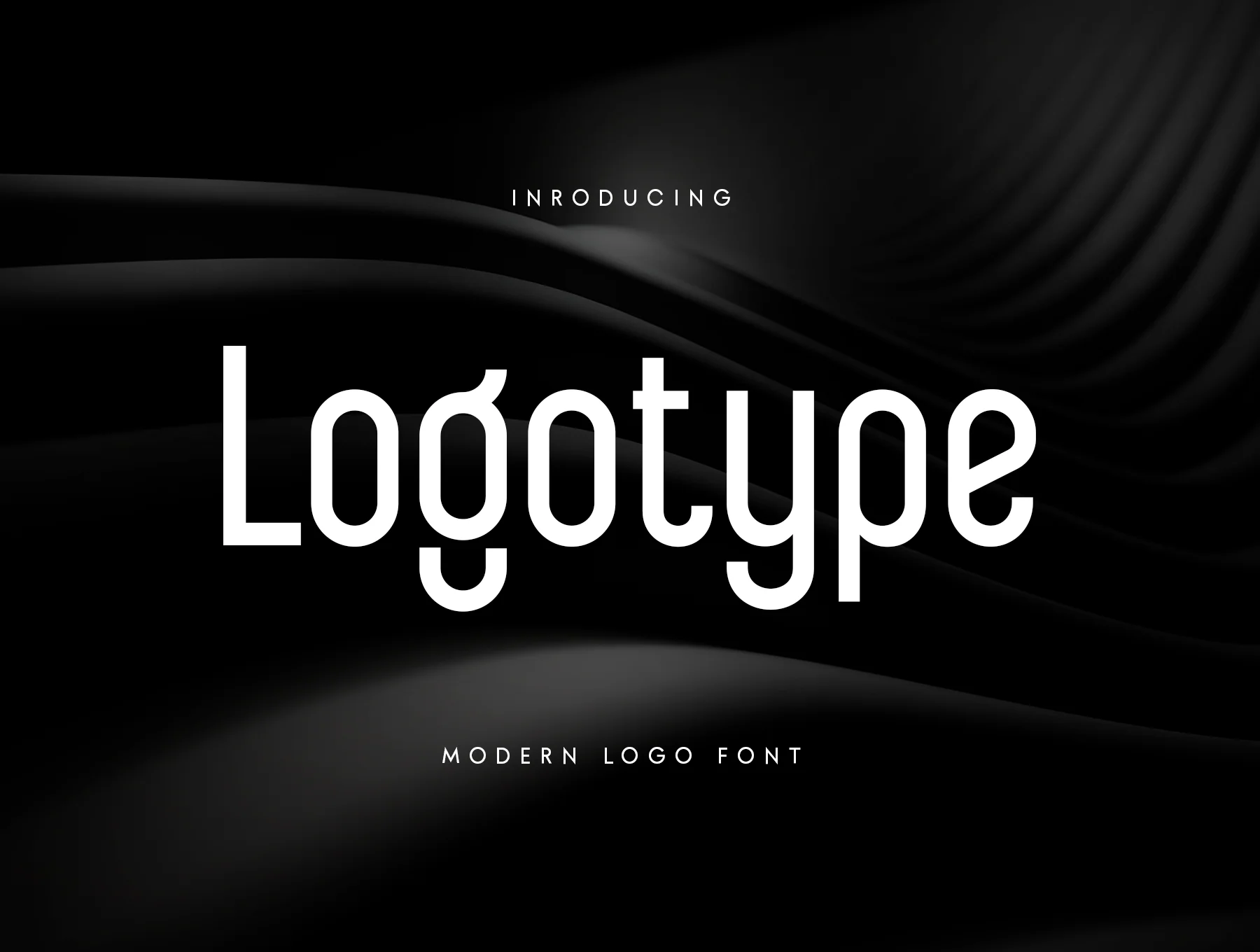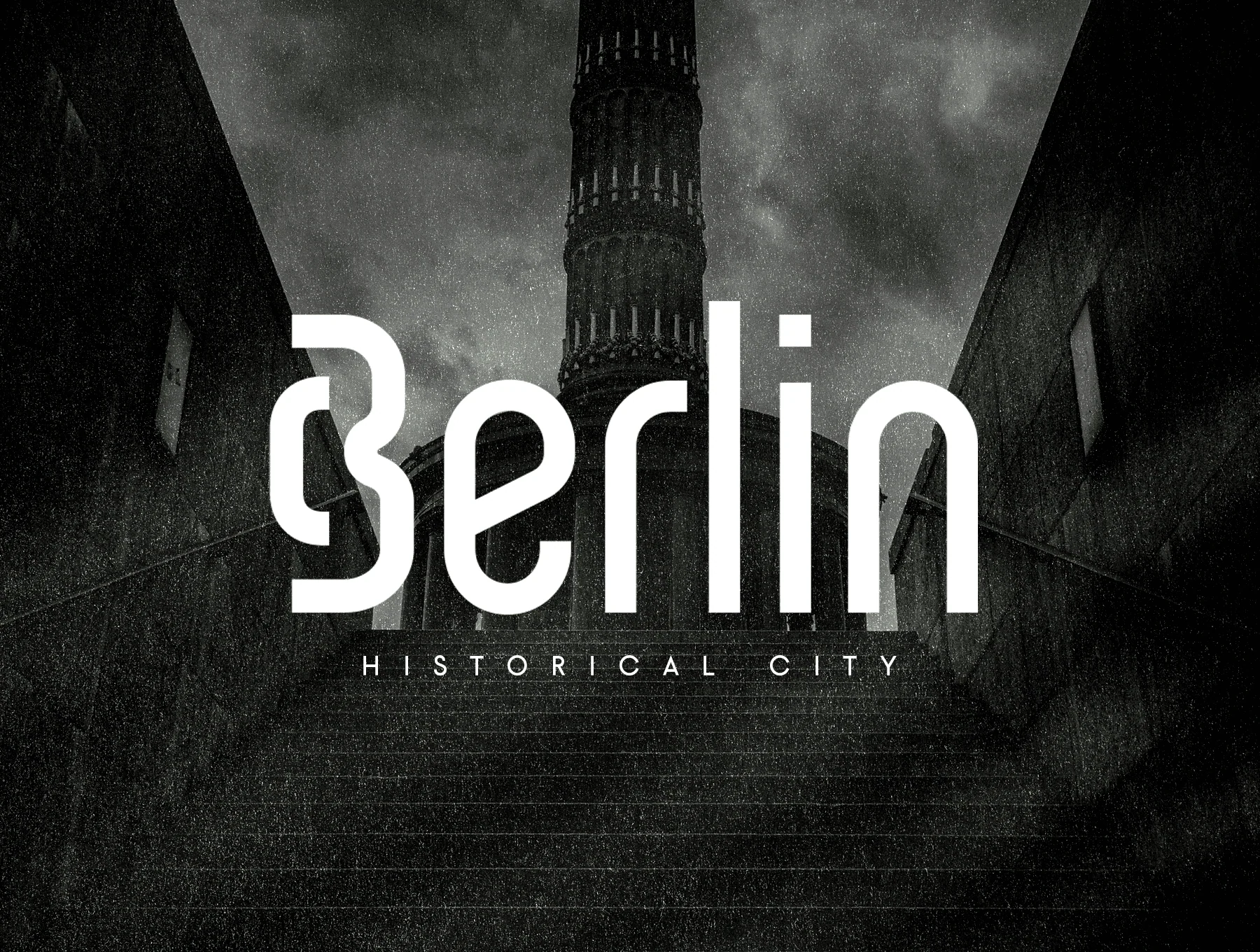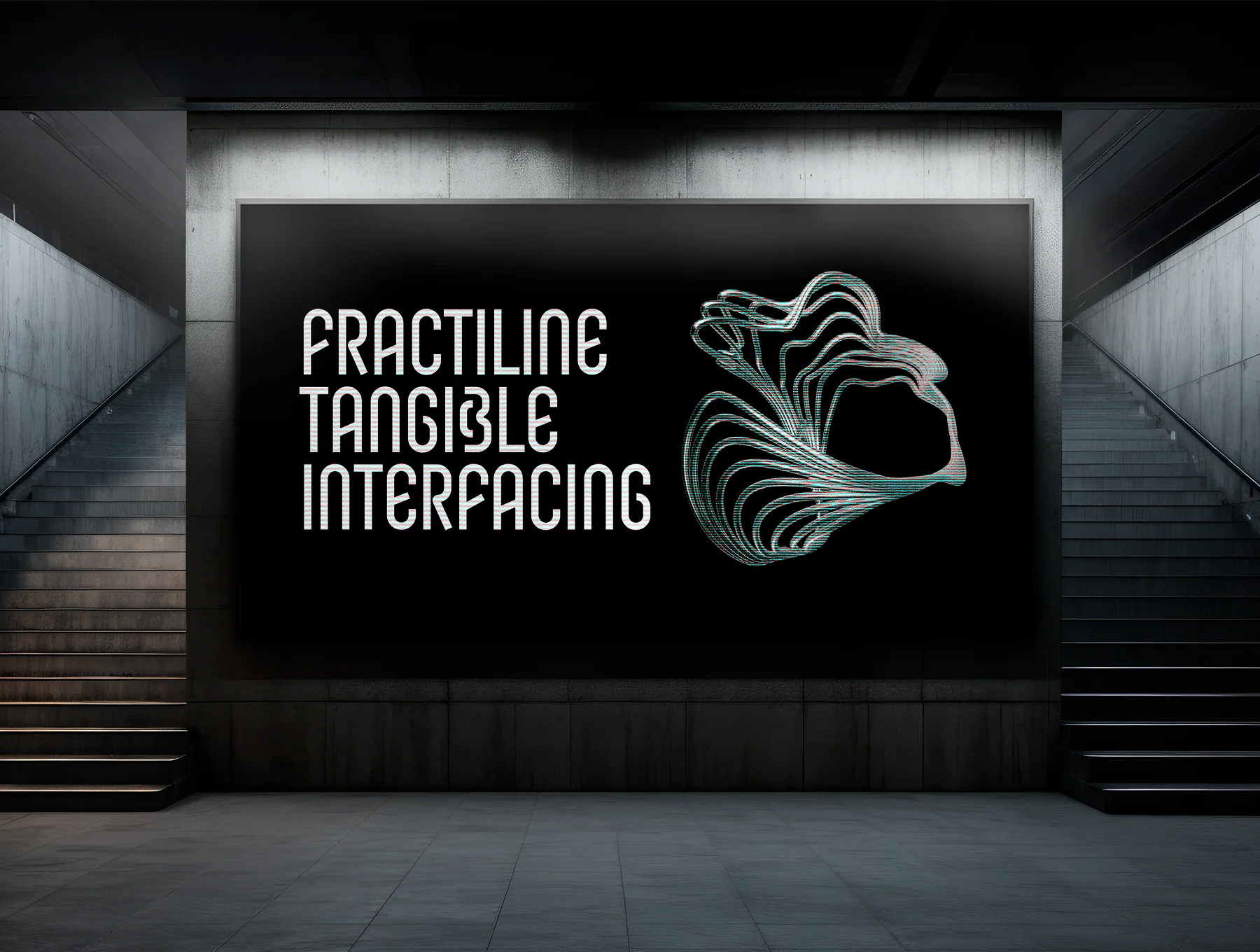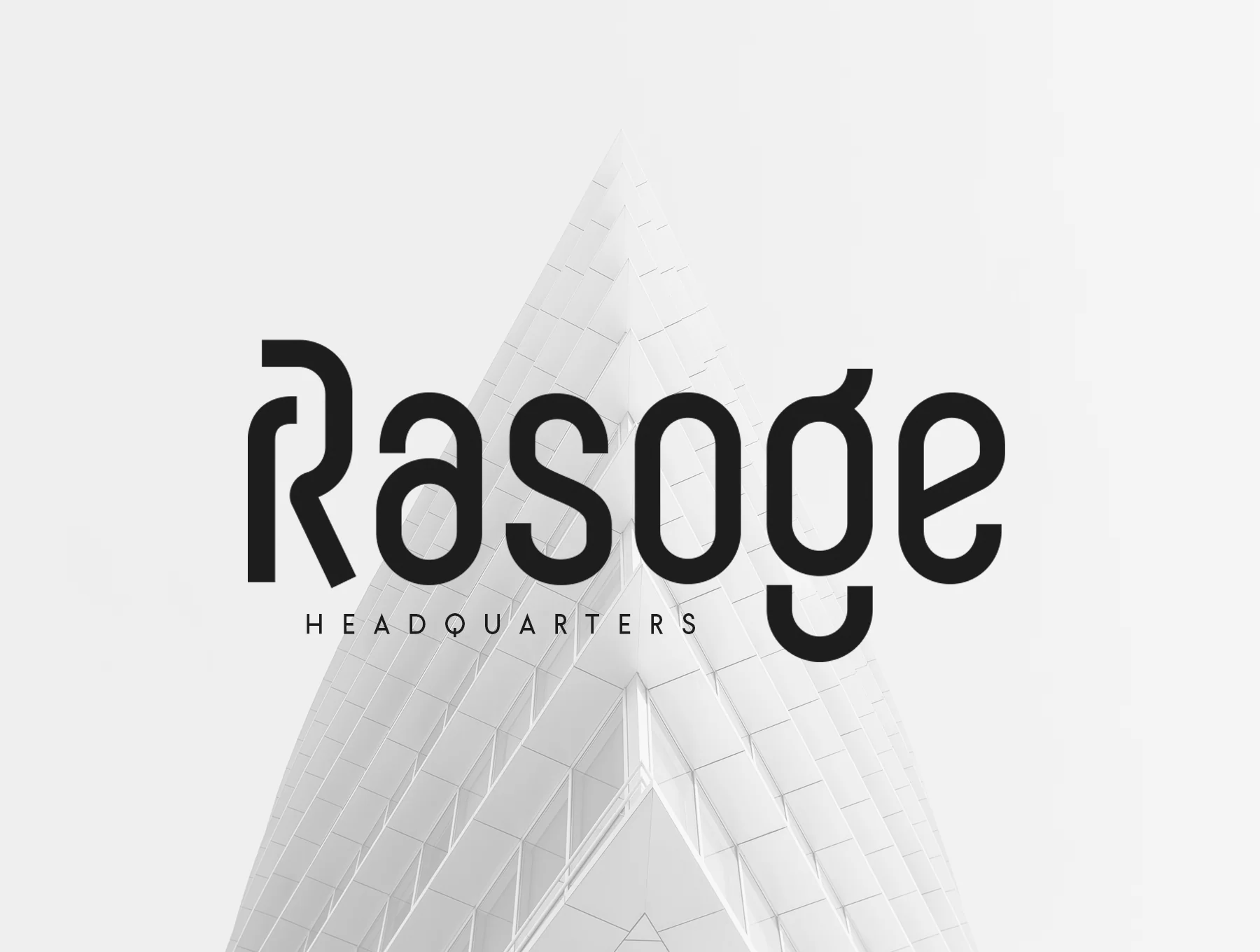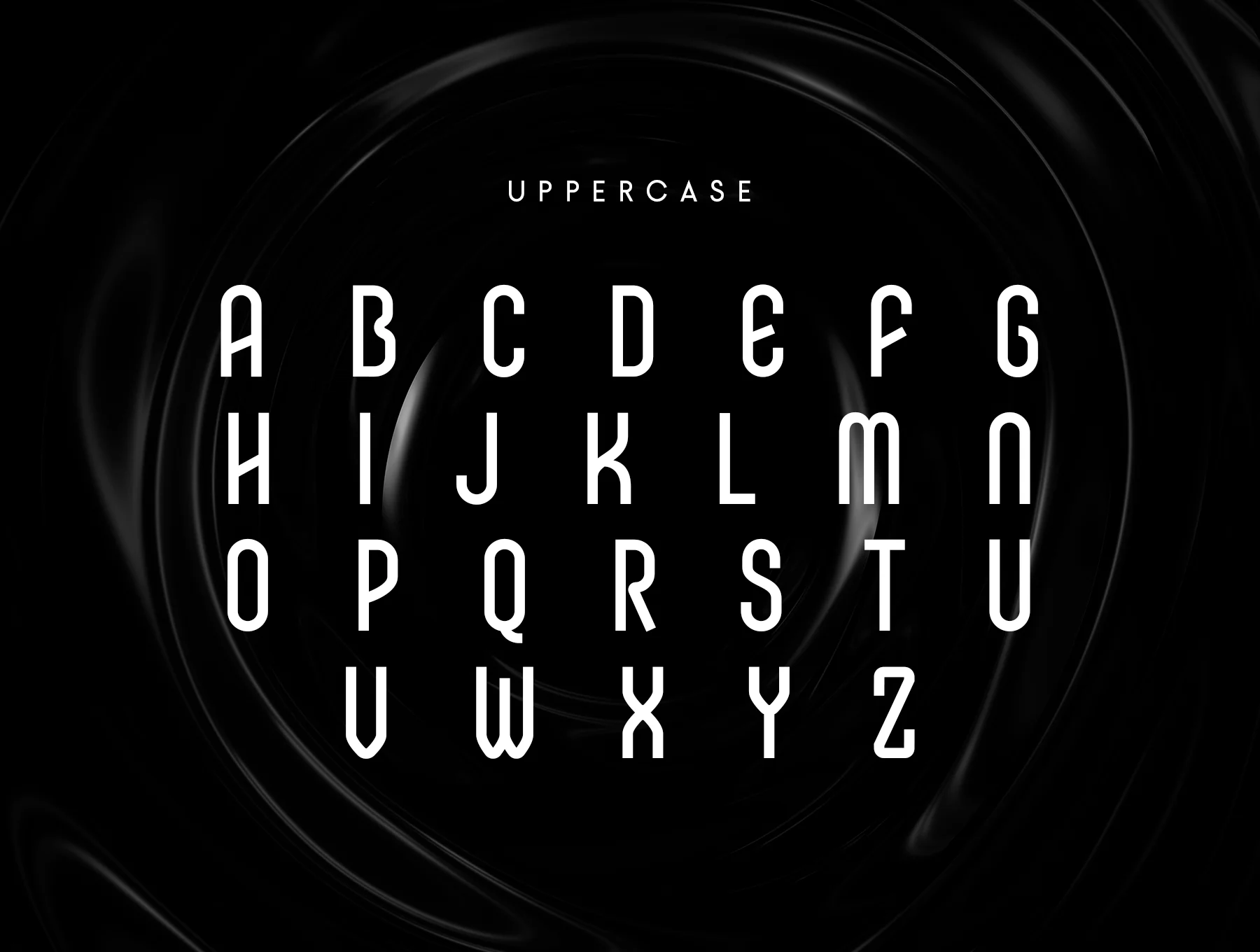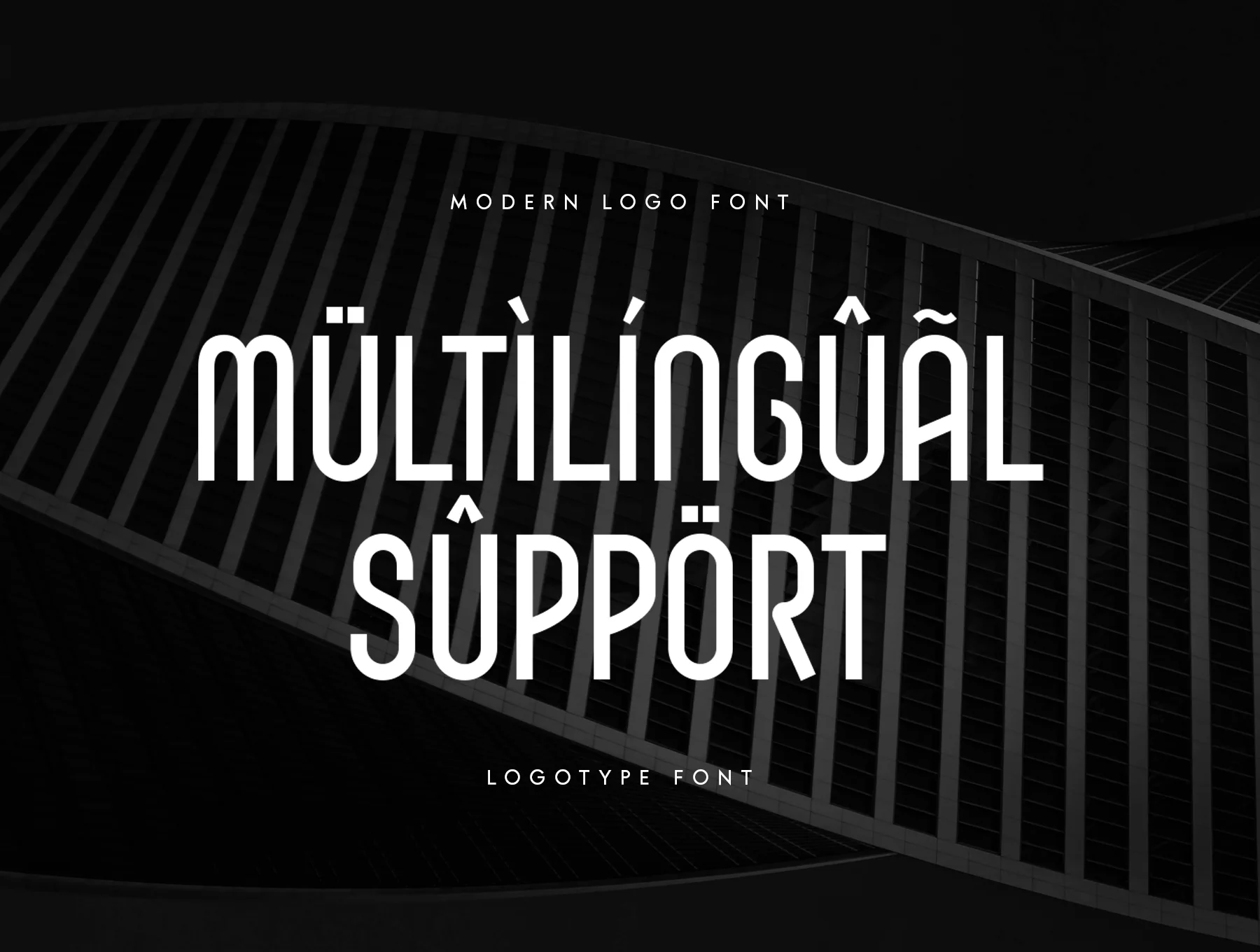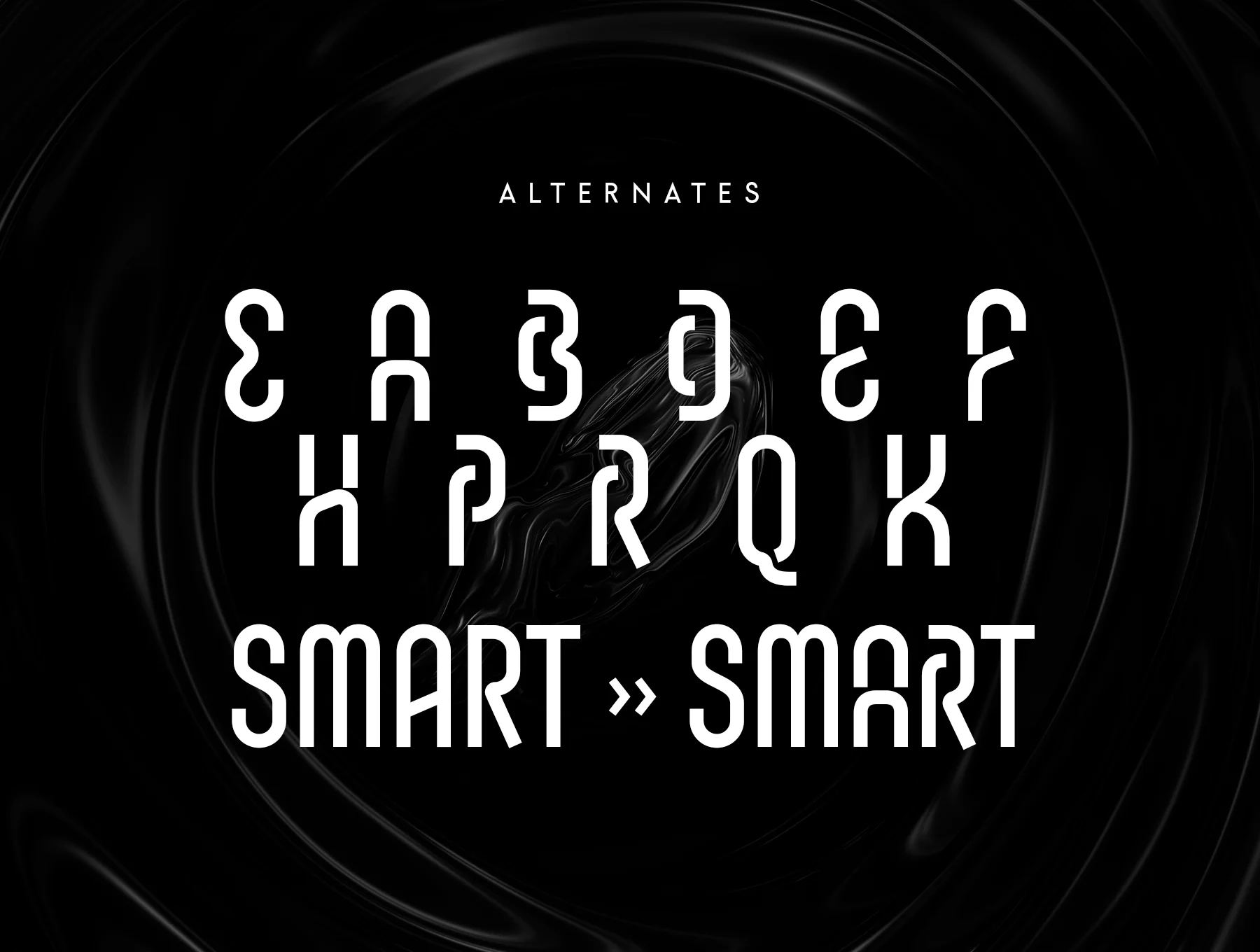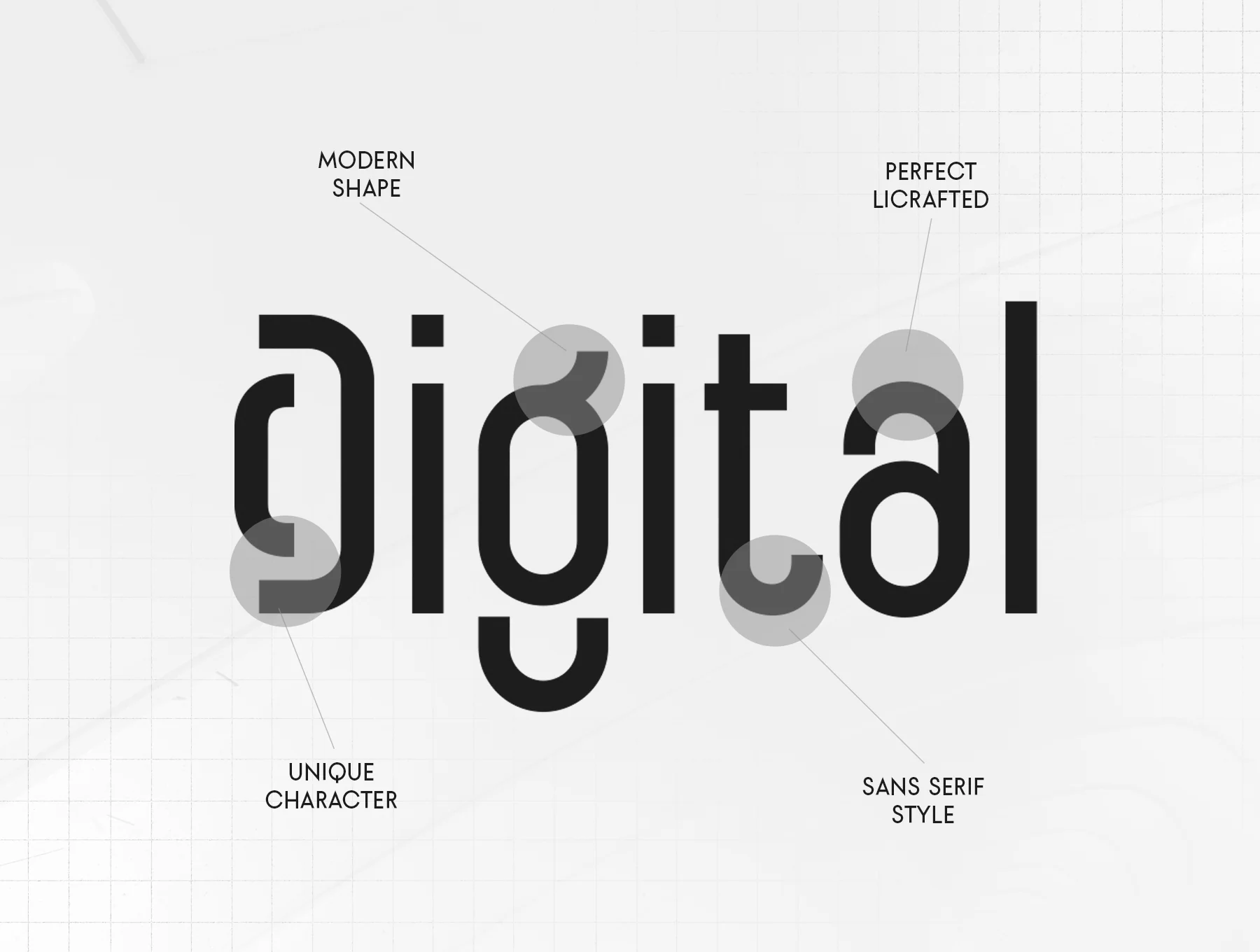
Logotype Font
Logotype - Contemporary Logo Typeface
Alternate stylistic glyphs
A distinctive modern logo font crafted for professional branding, helping your designs feel polished, current, and original. Its uniquely shaped alternates add character and value to your brand, giving designers and product owners flexible options to build countless creative variations.